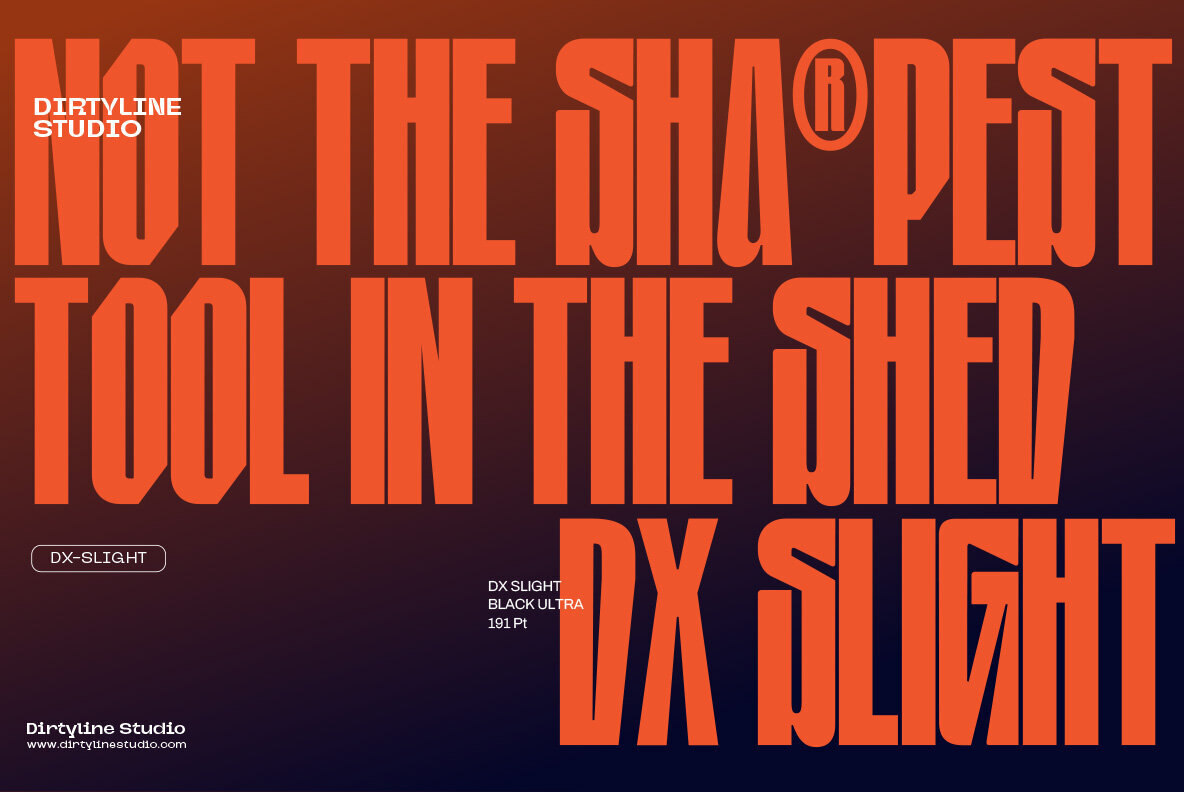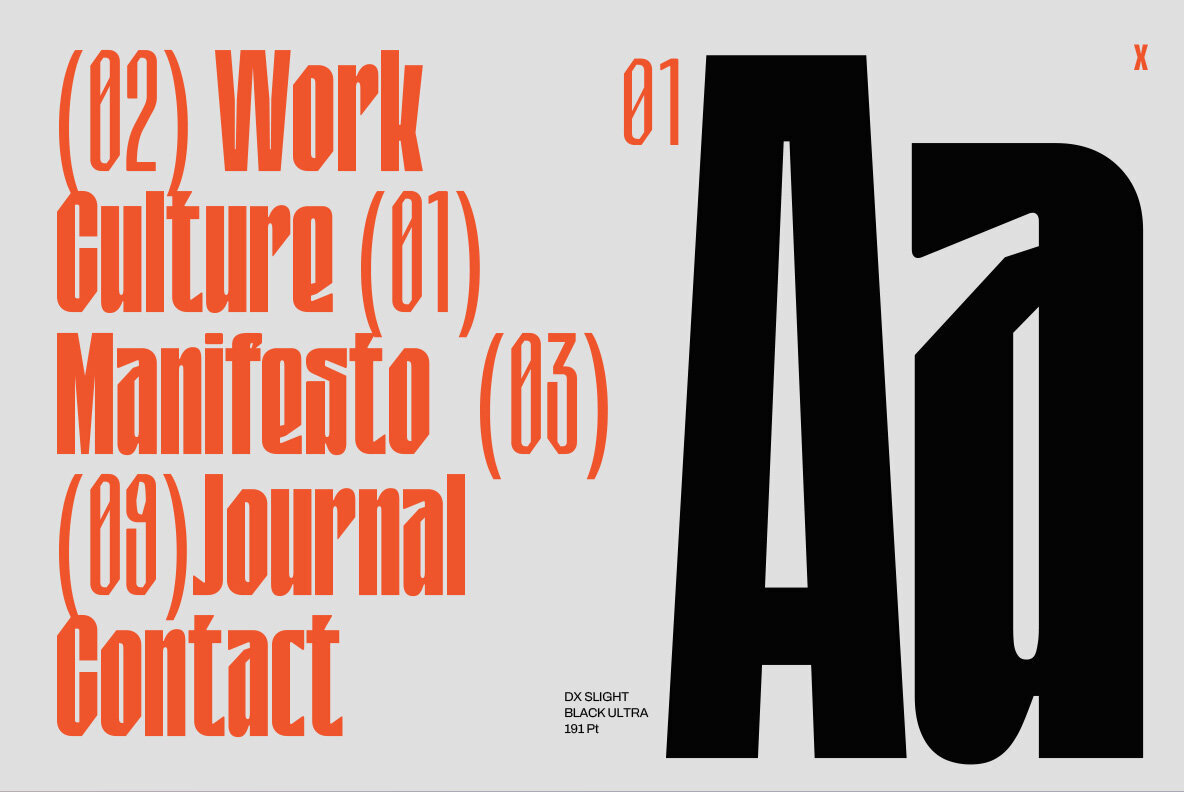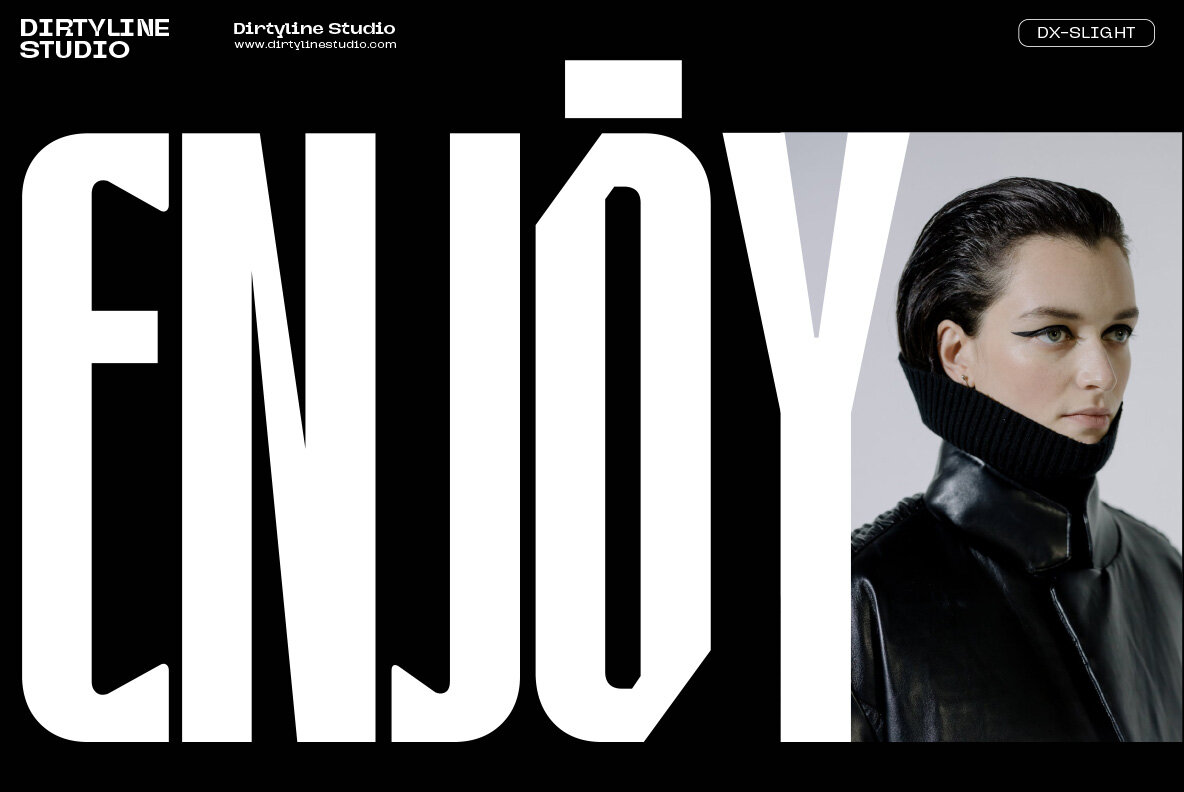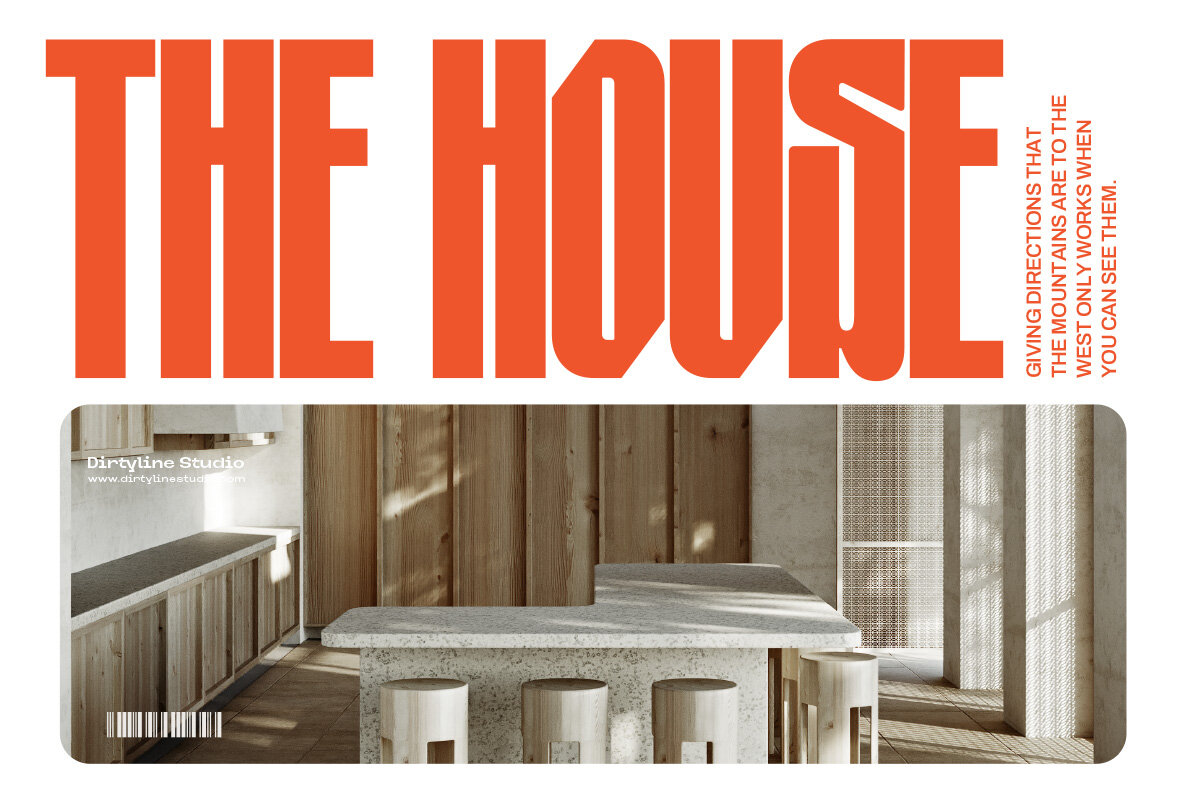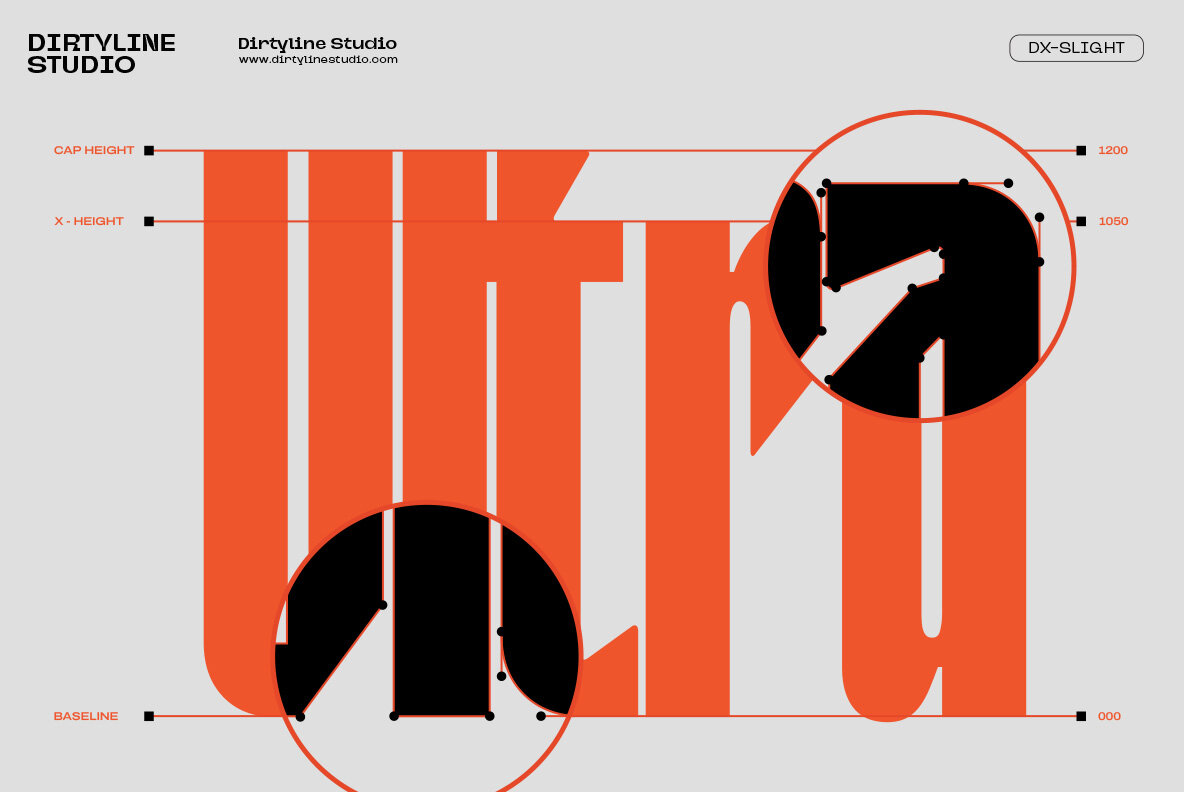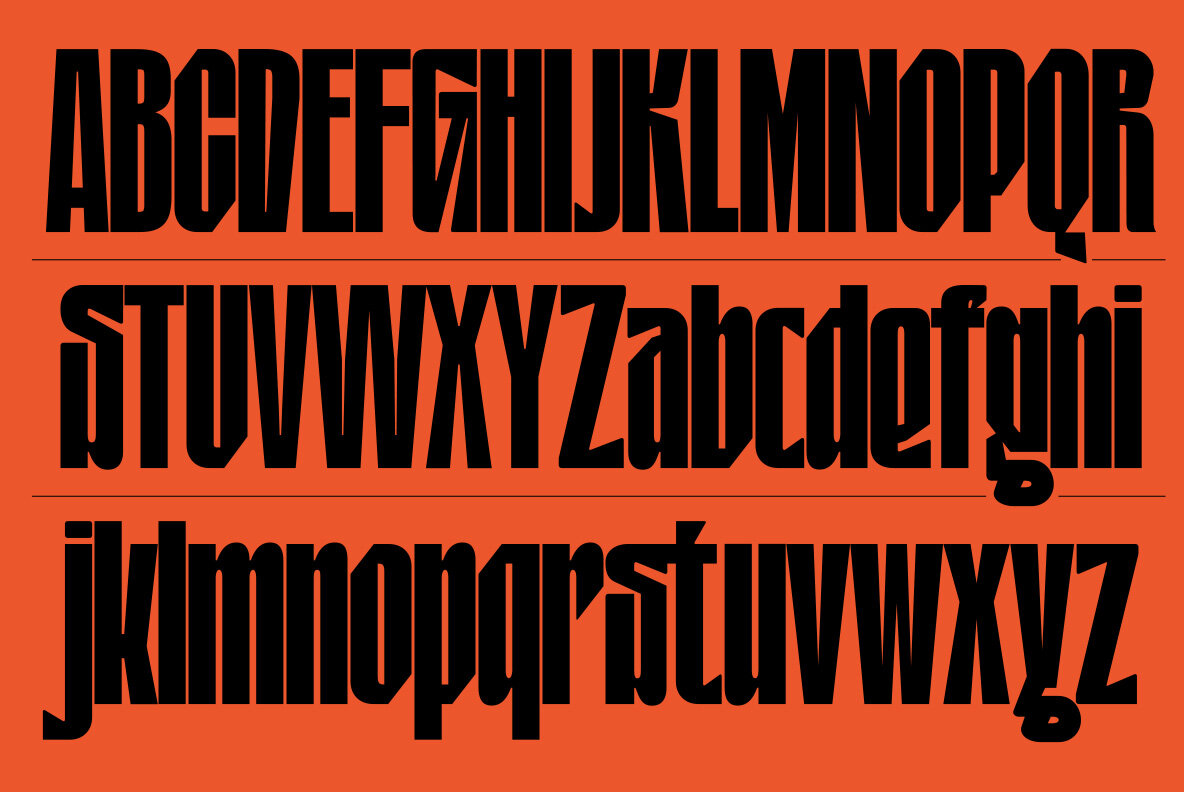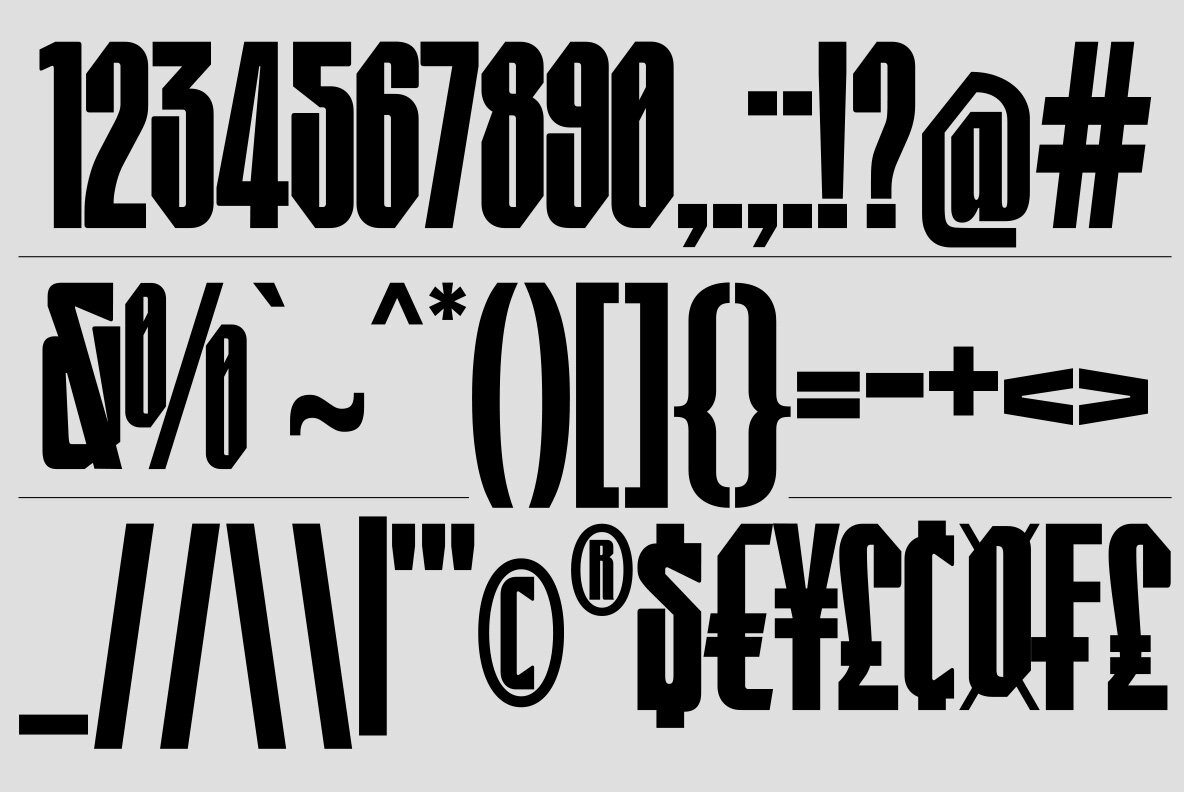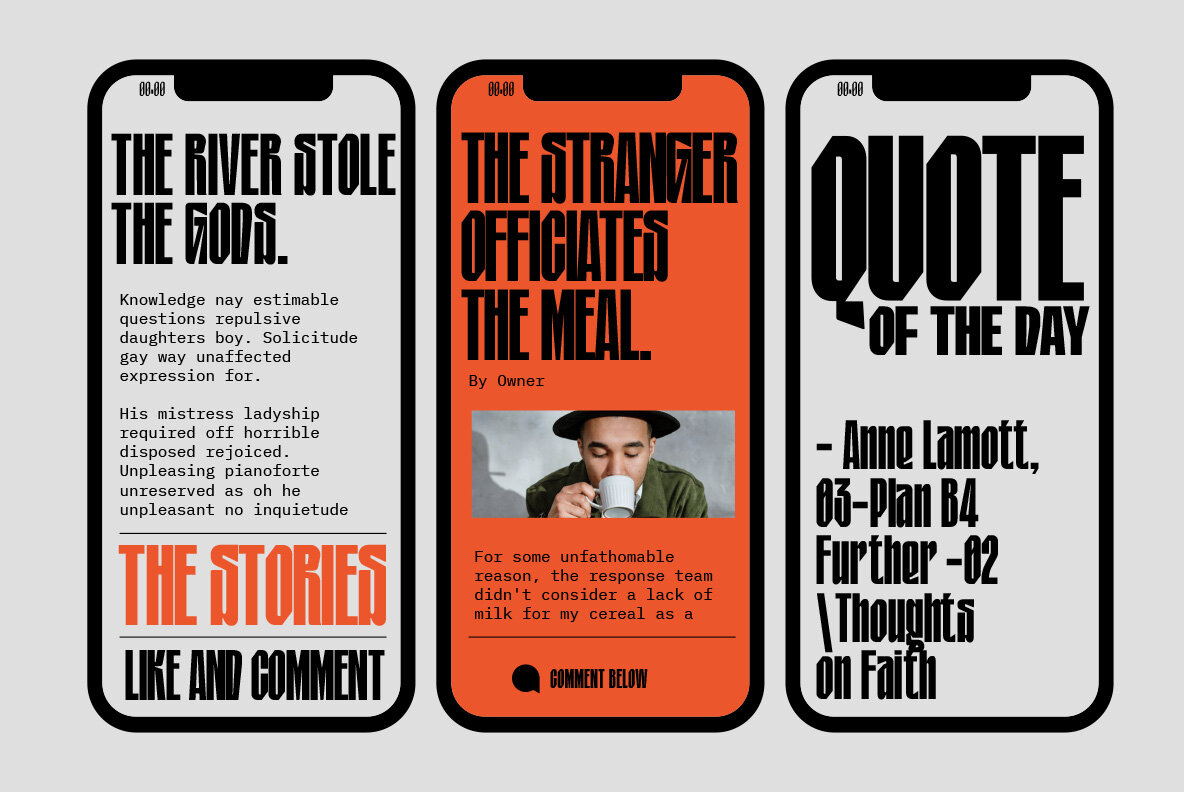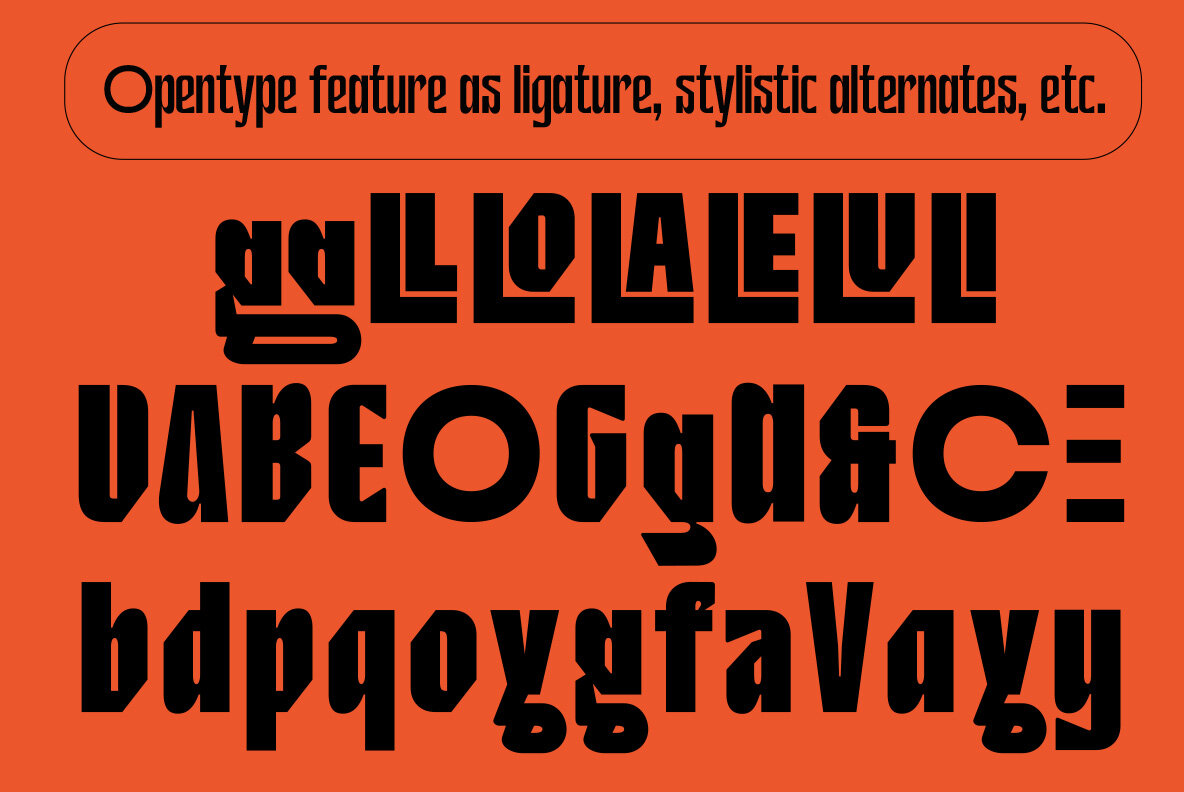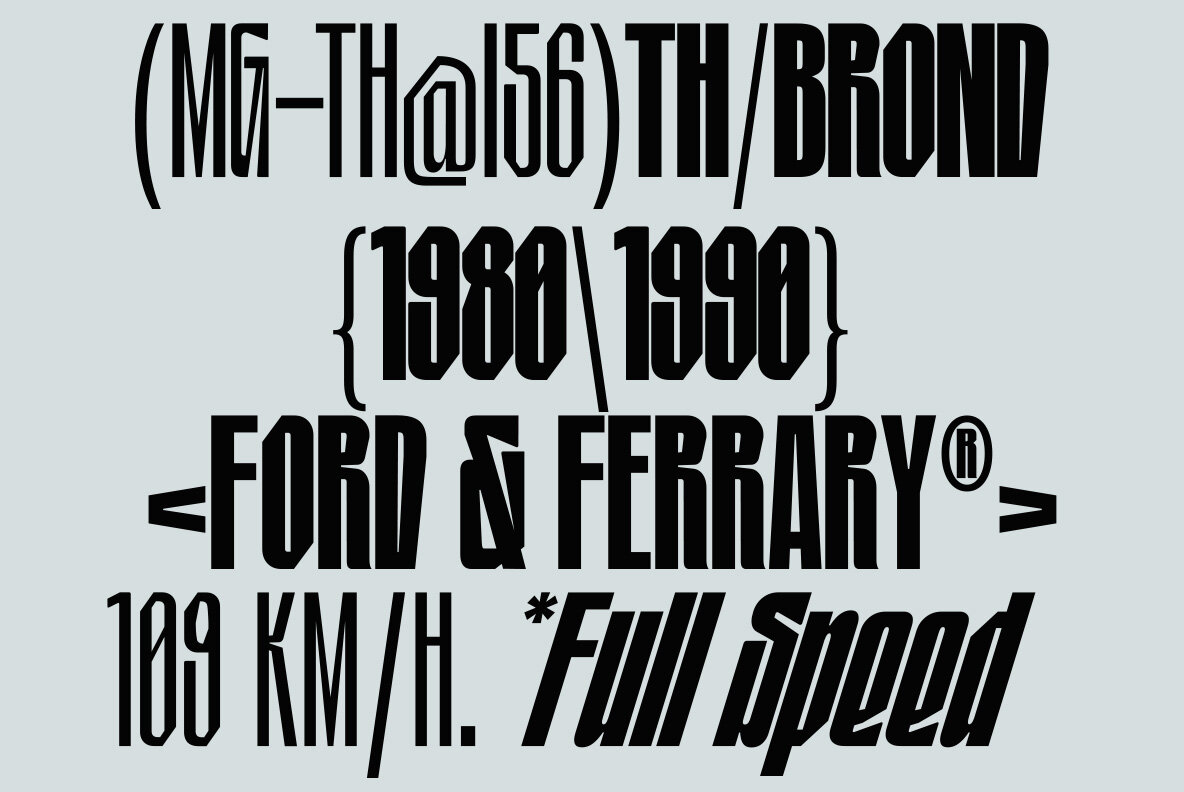
Dx Slight Font
Dx Slight a new fresh & modern Sans with a Ultra Condensed style. The font it’s look good in posters, it is ideally suited for setting titles. However, the font has gained wide popularity among designers, and now you can find Dx Slight on the covers of magazines, on restaurant signs and on the main pages of websites. Dx Slight Display Typeface is the part of a strong and modern display family. This typeface both impressive at display sizes and easily readable in text size, while the sharp shapes of the triangular sans and the distinctive letter shapes show their strength in logo design and impressive editorial use.